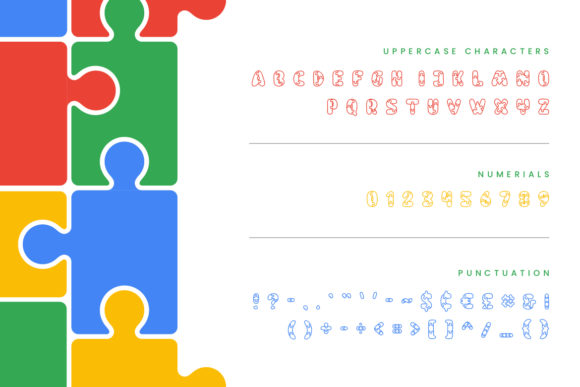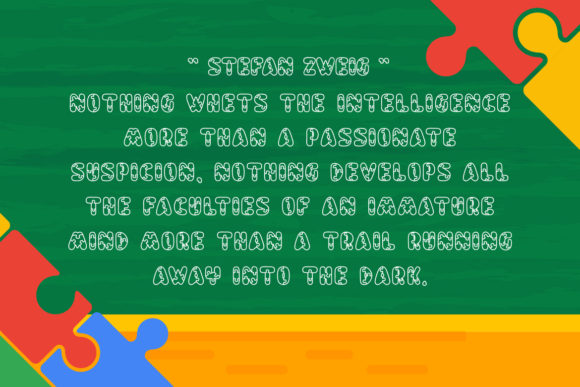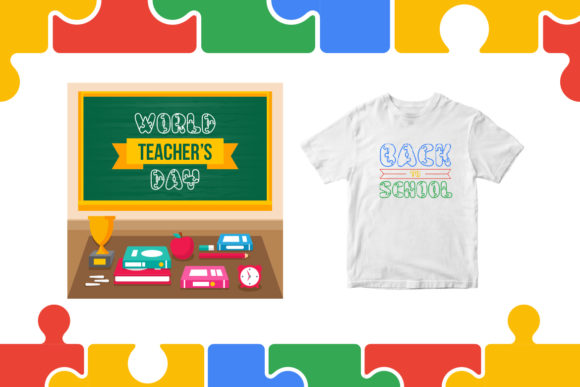
Introduction to Puzzle Font
Puzzle is an incredibly unique and interesting decorative font, featuring puzzle pieces.
Add this font to your creative ideas and notice how it will make them stand out .
Puzzle Font offers exceptional quality and versatility, making it a valuable addition to your design toolkit. Whether you’re creating for personal projects or commercial use, Puzzle Font delivers professional results.